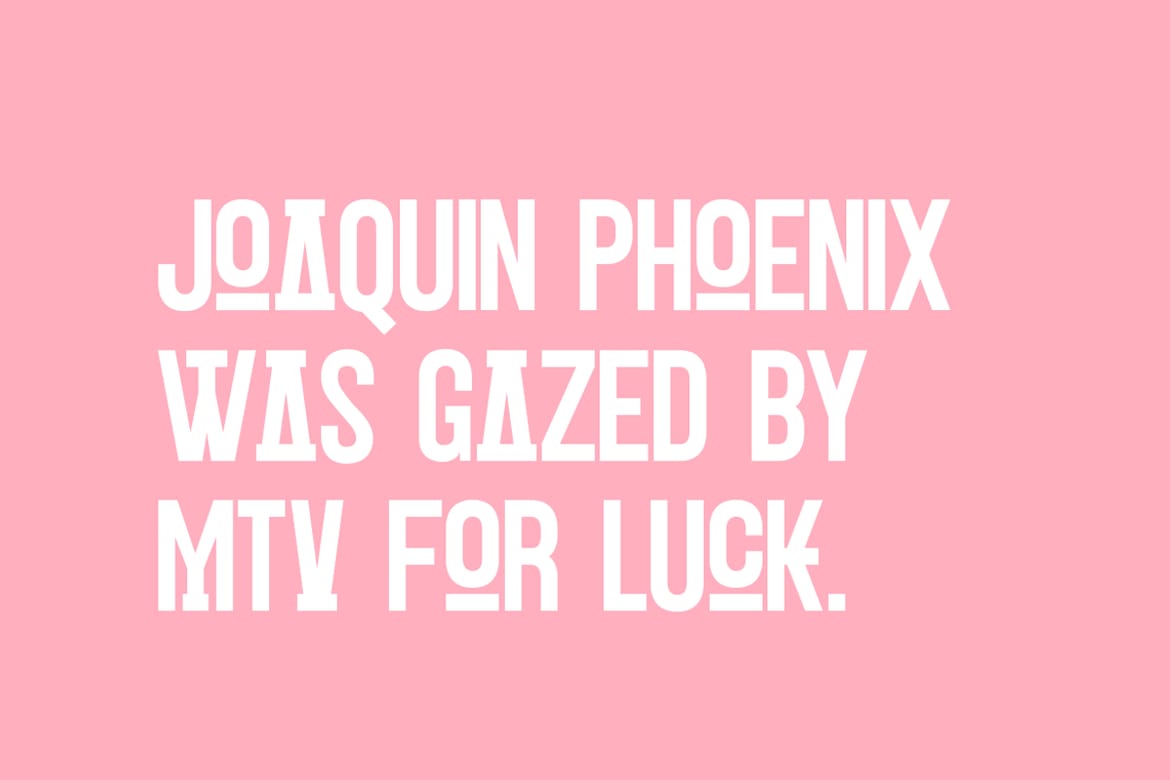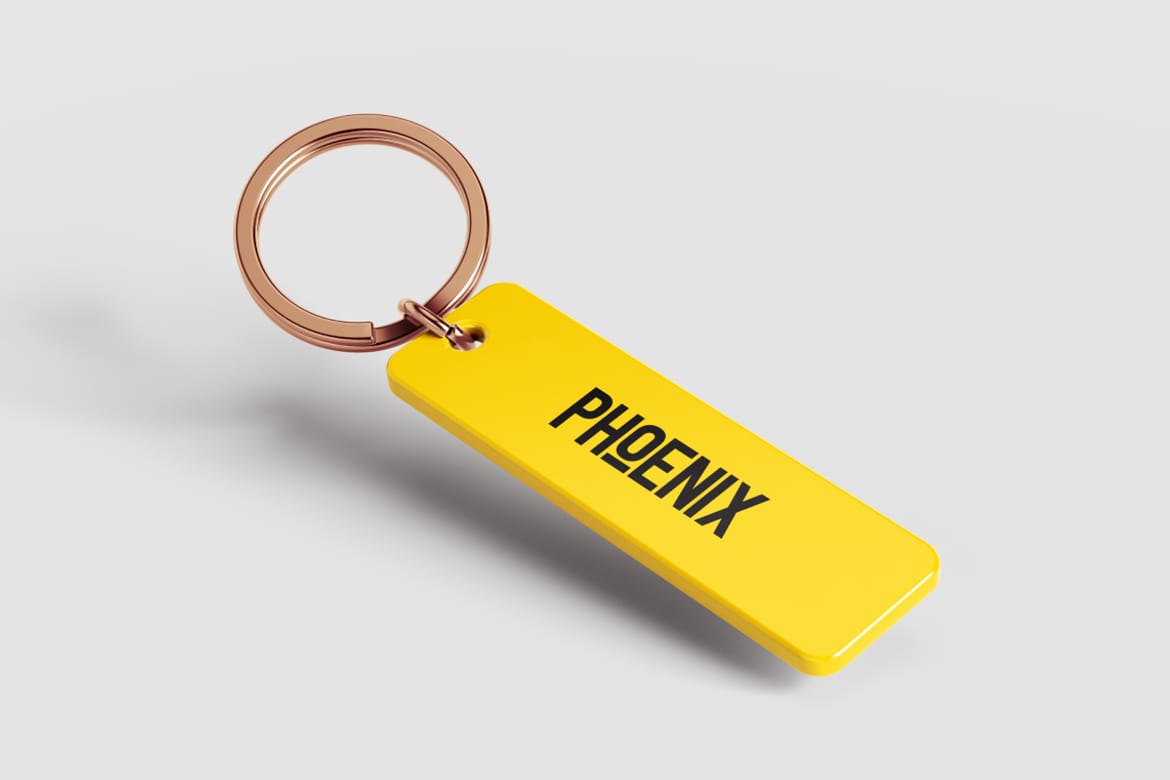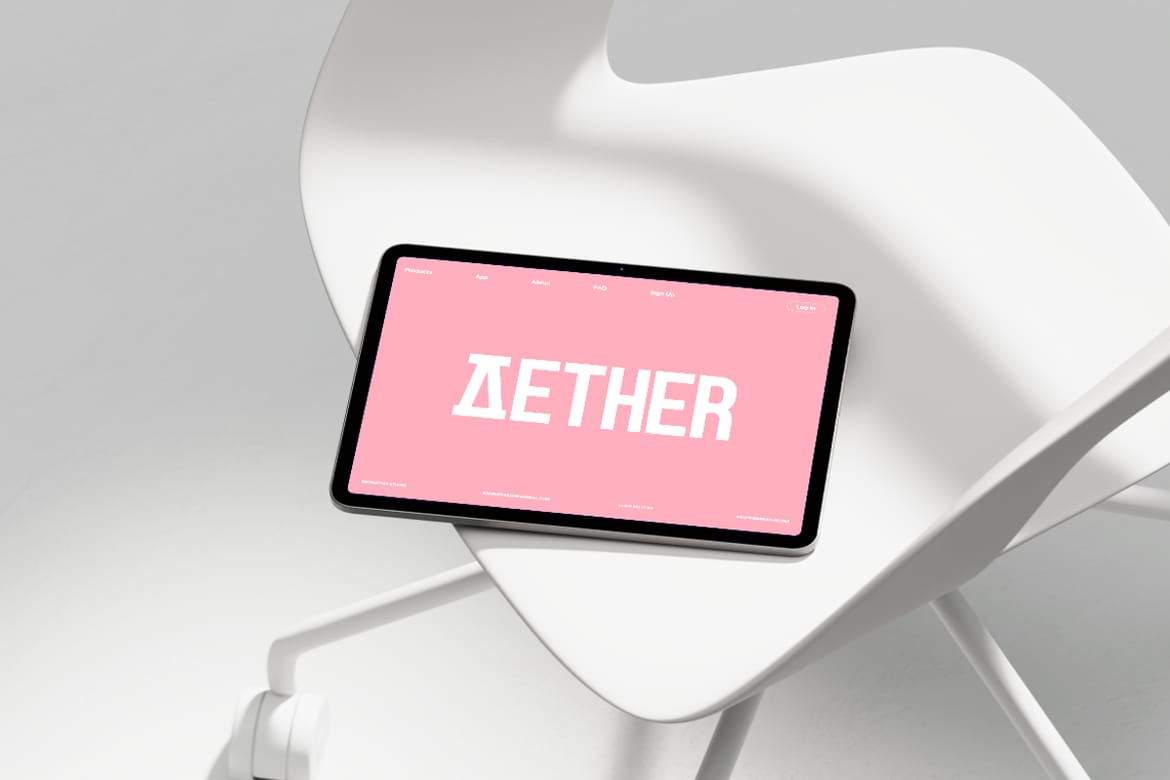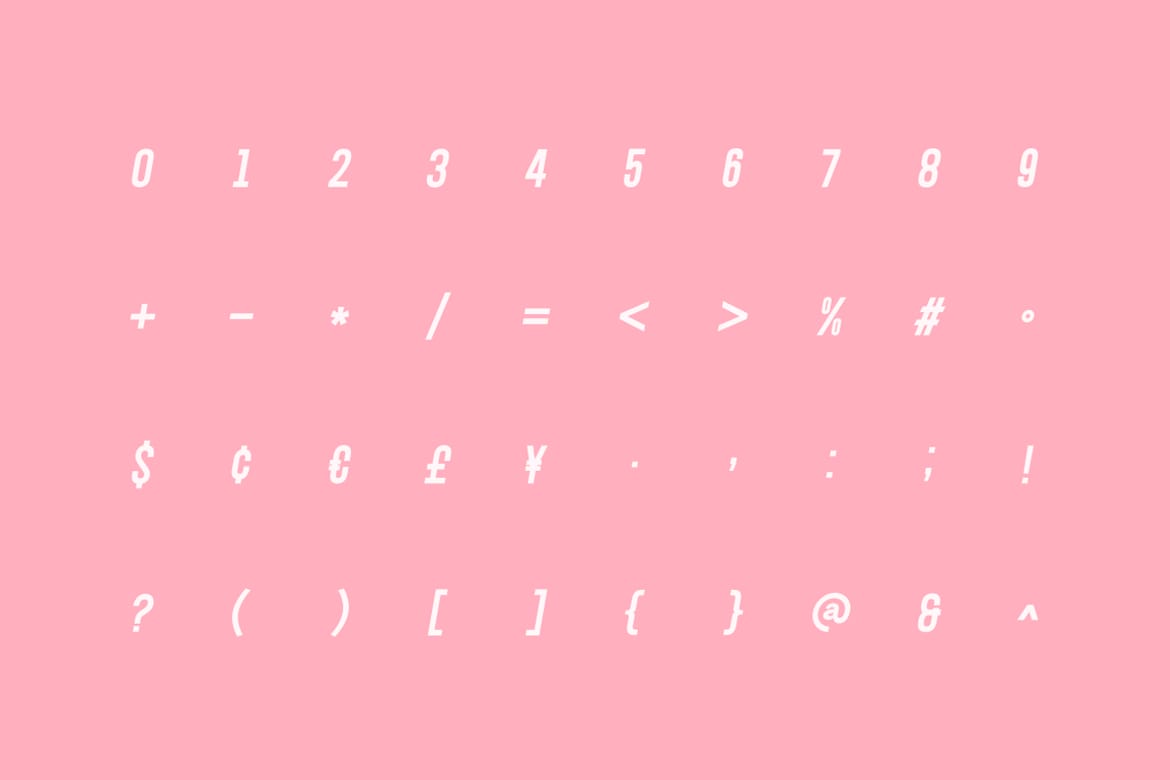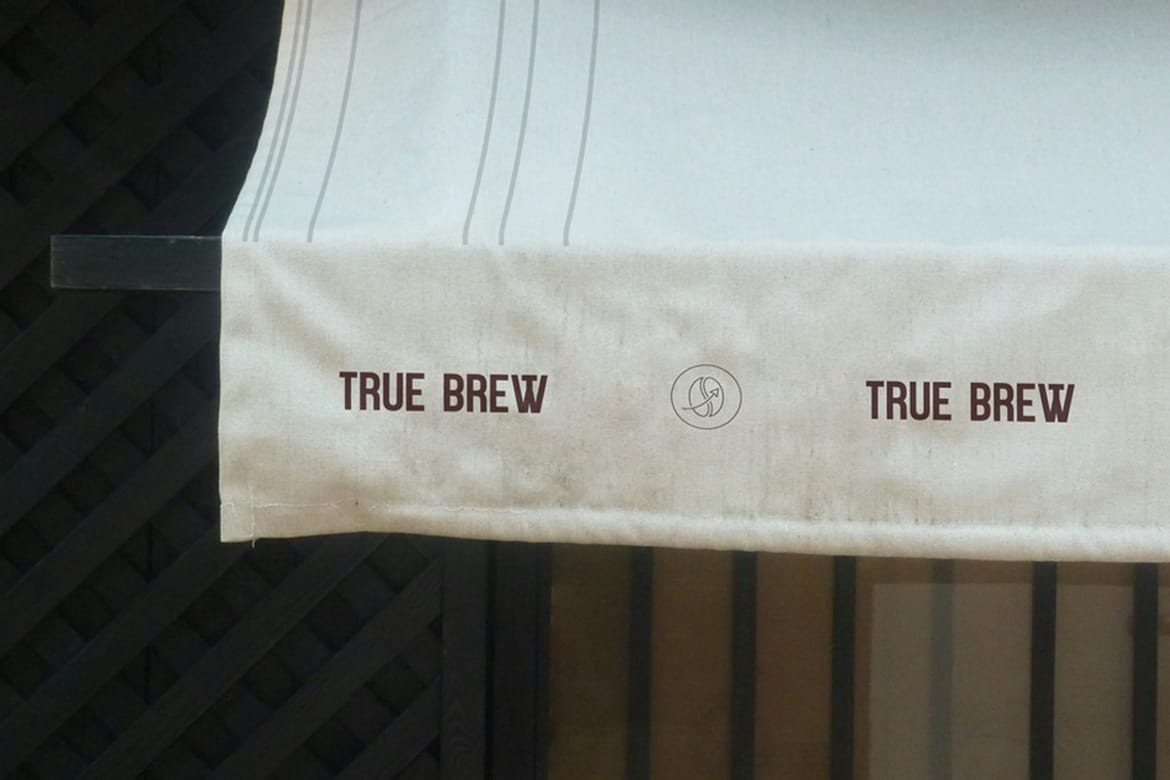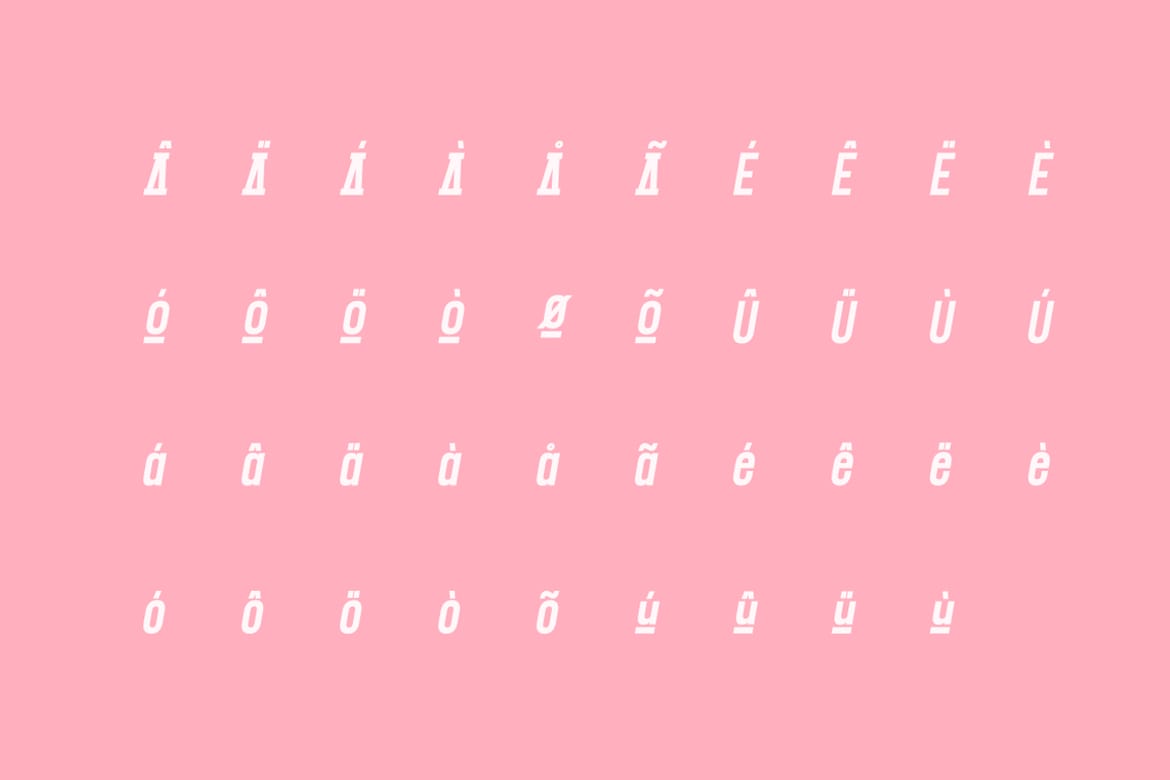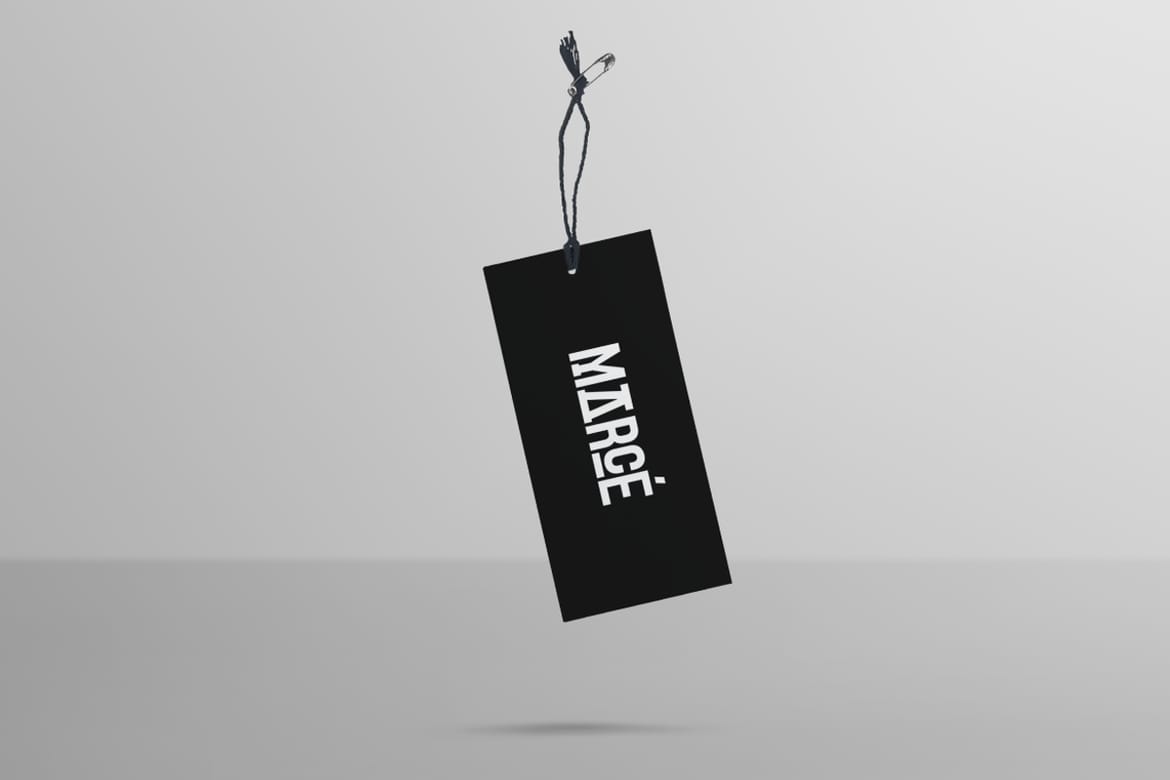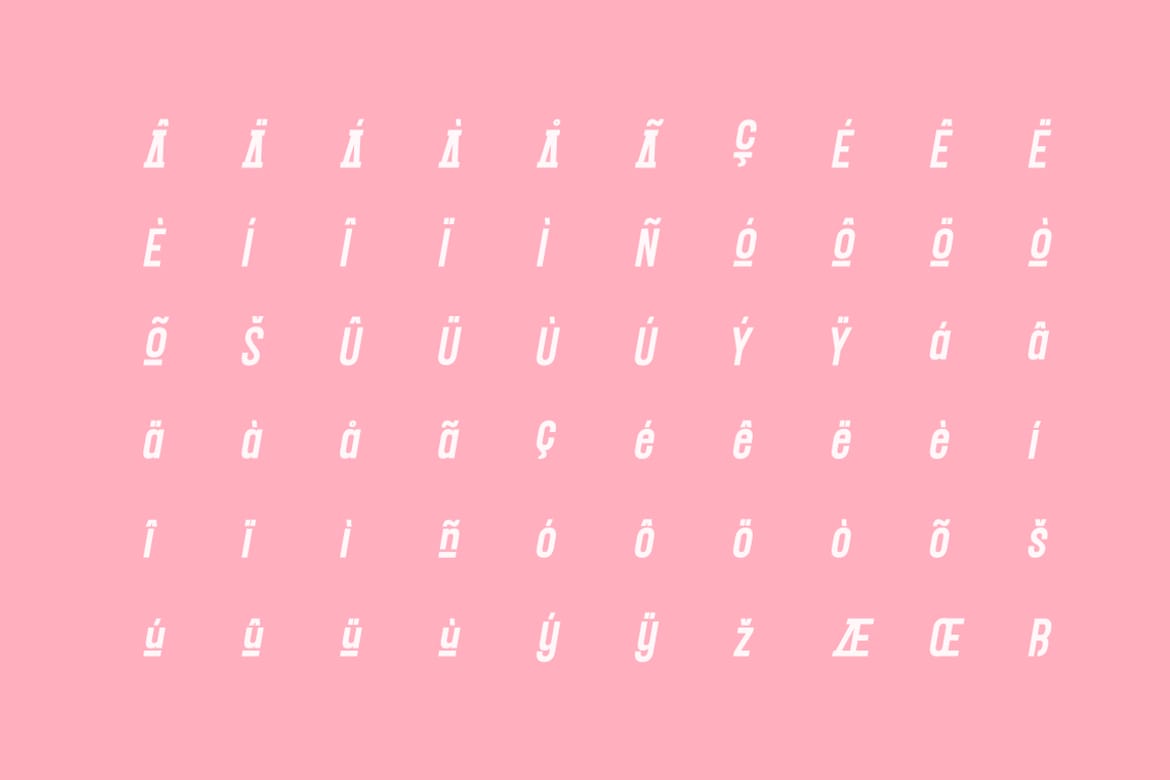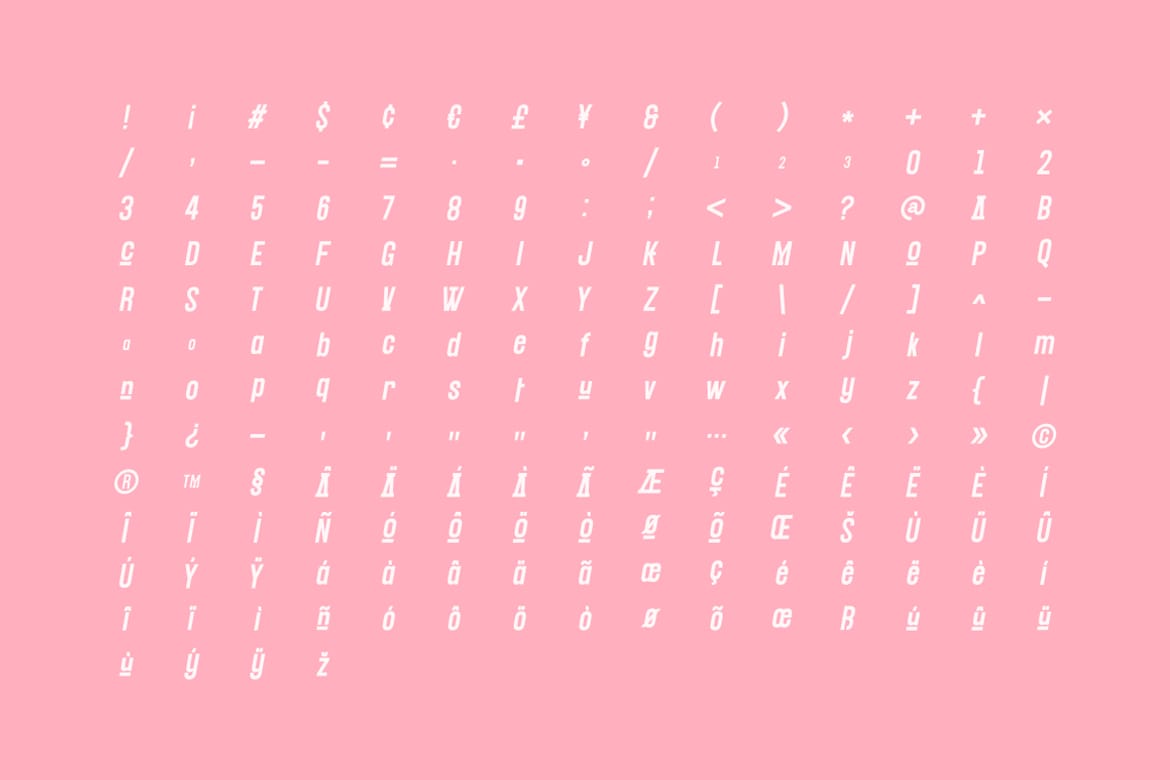
Jaxon – Minimal Geometric Logo Font
Jaxon is your perfect choice when clarity, balance, and modern character matter most. Built with geometric structure and contemporary style, Jaxon blends clean lines, confident curves, and precise proportions to create a strong and versatile visual voice. Whether you are working on branding, logos, websites, or marketing designs, Jaxon brings a refined and professional presence to every project.
More than just a typeface, Jaxon is designed for real creative work. From bold headlines to subtle brand identities, this font family adapts easily across digital and print platforms. Jaxon helps your designs communicate with confidence, simplicity, and modern elegance, making it a reliable partner for today's designers.
- Clean geometric proportions
- Bold headlines to brand identities
- Digital and print ready